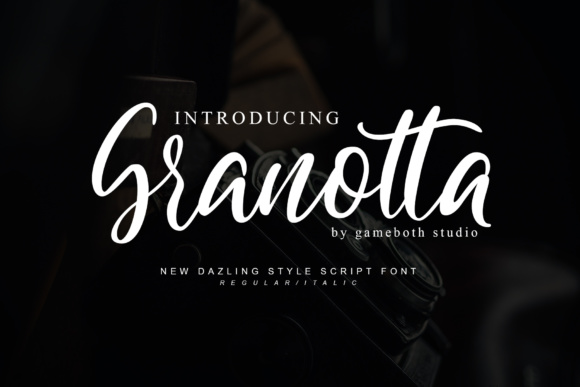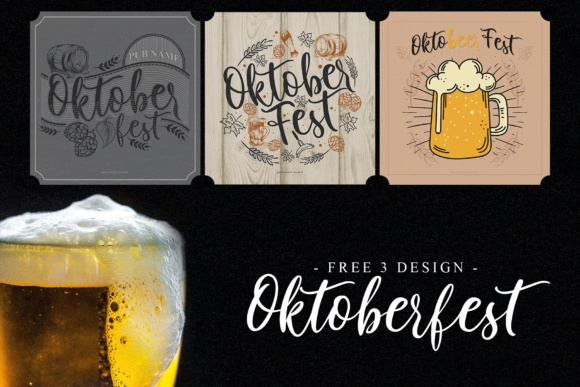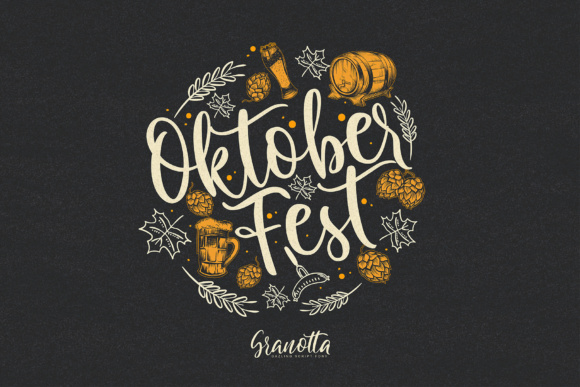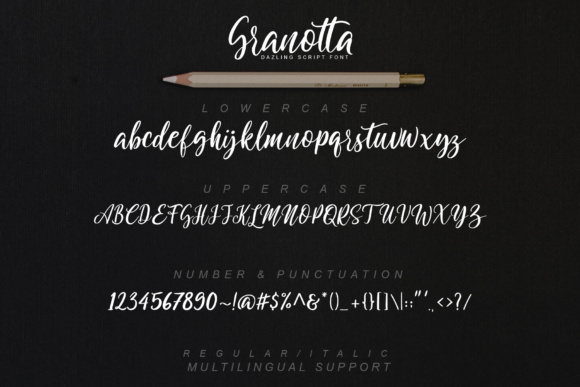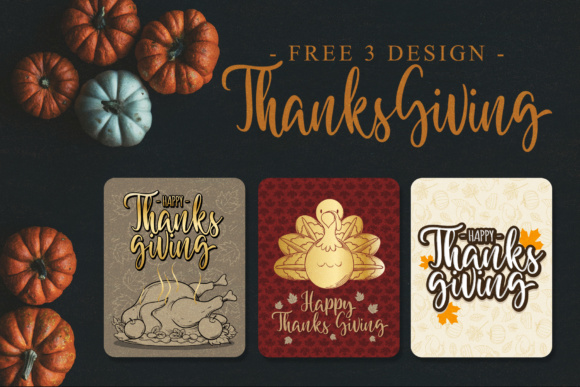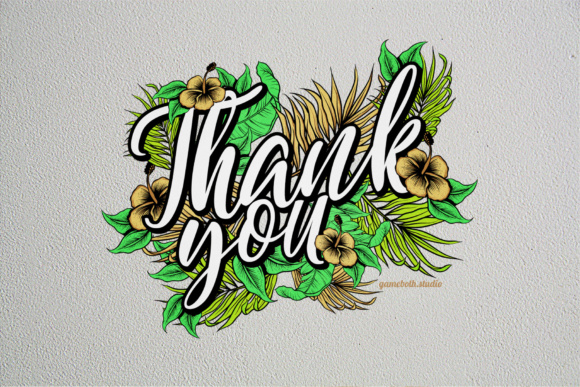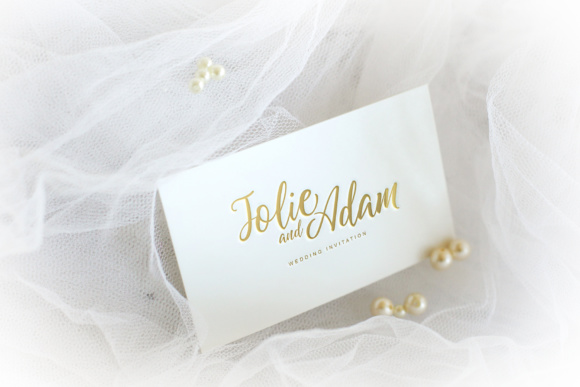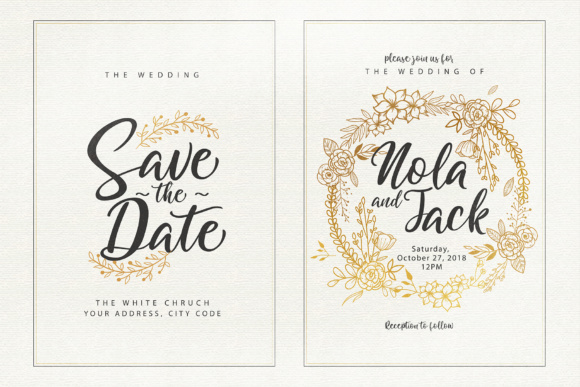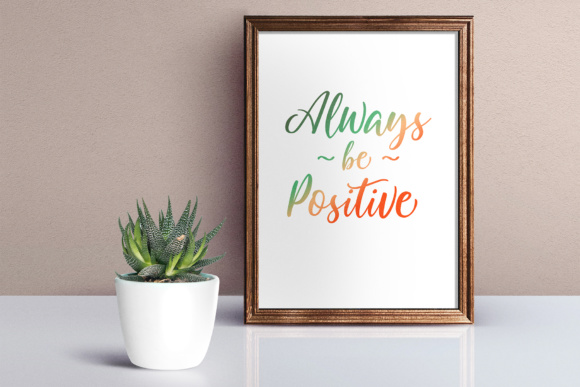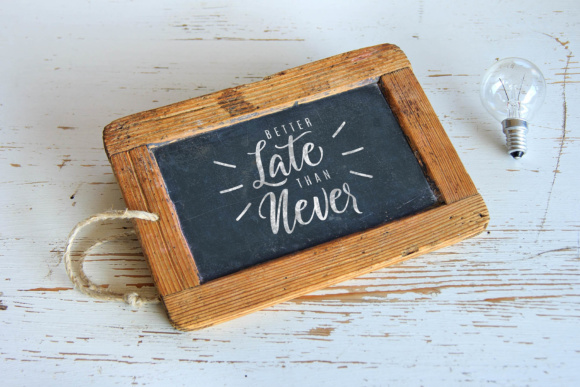
Granotta Script Font
About Granotta Script Font
The Granotta is a new, dazzling style script. It comes in a regular and Italic style and includes 12 awesome holiday cards to spice up your designs.